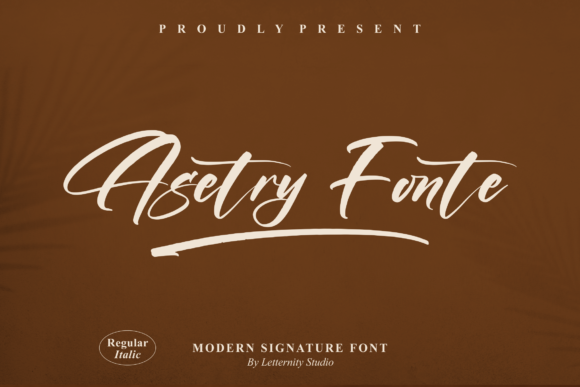
Embark on an enchanting typographic voyage with Asetry Fonte, the captivating script font meticulously crafted by Letternity. Designed to set your imagination afloat, Asetry Fonte is an exquisite specimen of handwritten artistry that effortlessly blends the charm of classic calligraphy with a modern, refreshing twist.
Step into a world where letters dance with elegance and finesse. Asetry Fonte's graceful strokes and sweeping curves evoke a sense of timeless beauty, while its contemporary flair breathes new life into your creative endeavors. Let your words take center stage, adorned with the timeless allure of Asetry Fonte.
Dive into a sea of creativity with Asetry Fonte, the ultimate font for boat lettering. Its nautical-inspired design captures the essence of the open waters, evoking the thrill of adventure and the serenity of tranquil seas. Transform your boat's name into a maritime masterpiece, a symbol of your passion for exploration and discovery.
With Asetry Fonte, the possibilities are as boundless as the horizon. Its versatility extends beyond boat lettering, making it an ideal choice for a wide range of creative projects. Create stunning logos that exude sophistication, design eye-catching posters that command attention, or craft heartfelt invitations that leave a lasting impression. Let your imagination set sail with Asetry Fonte, the font that knows no limits.
Don't let your projects remain anchored in mediocrity. Hoist the sails of creativity with Asetry Fonte and embark on a journey of typographic excellence. Let your words dance upon the waves of inspiration, leaving a trail of beauty and enchantment in their wake.